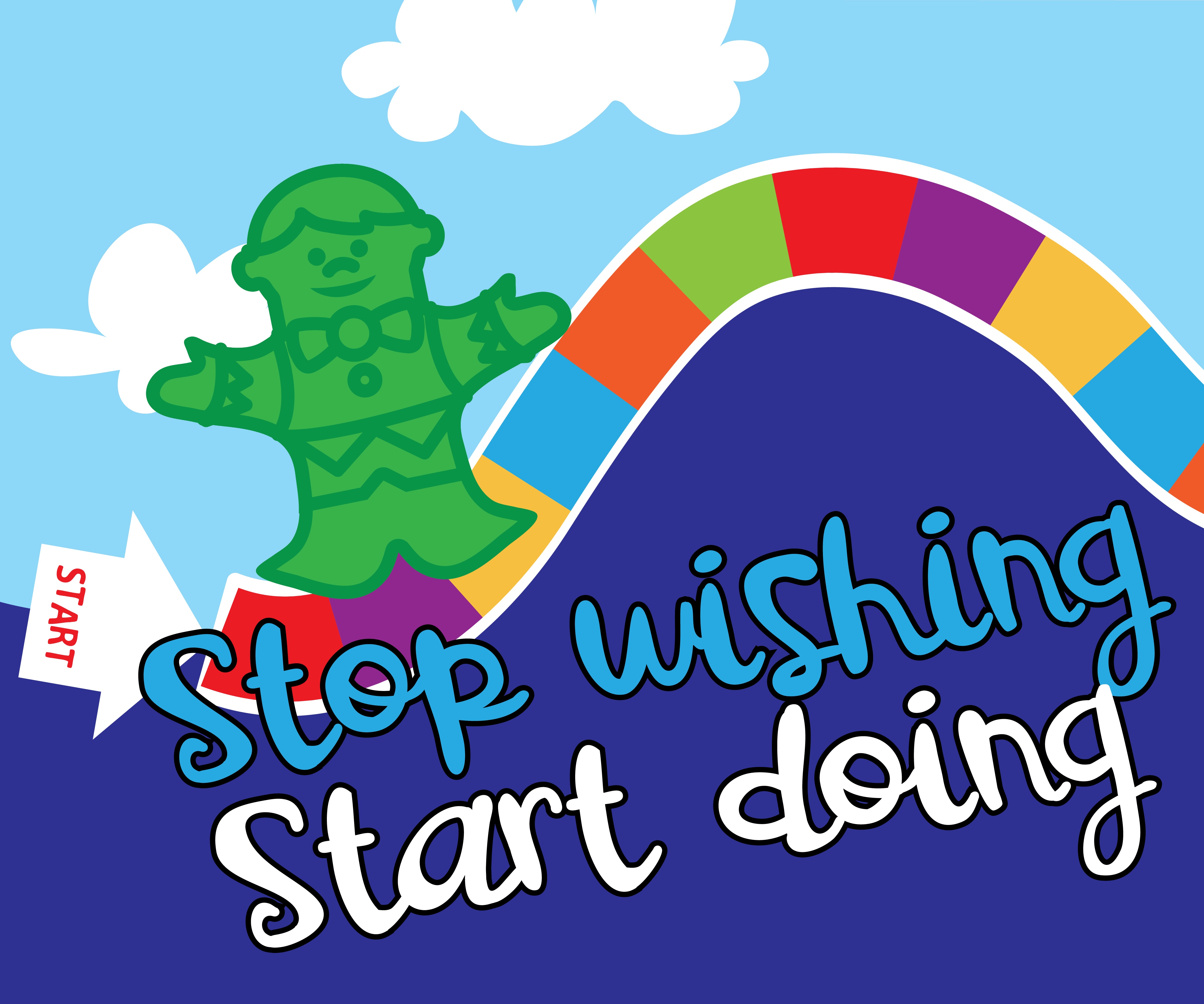
Introduction to Gooey Gumdrops Script Font
Do you ever find yourself stuck on a creative project, desperate for the perfect font to bring your design to life? I know I do. And sometimes, all it takes is one glance at a quirky, high-quality script font to spark inspiration. For designers, having access to a wide range of design resources is crucial to creating unique and engaging work.
Enter Gooey Gumdrops Script Font, a delightful and whimsical script that pairs perfectly with its sister font, Gooey Gumdrops. This free download is a game-changer for any creative project, adding a touch of youthful energy that’s sure to captivate your audience. And the best part? The transparent background makes it easy to incorporate into your design without any fuss.
Whether you’re working on a children’s book, a blog post, or a social media campaign, Gooey Gumdrops Script Font is an invaluable resource for designers. Its versatility and charm make it a must-have for anyone looking to add a touch of personality to their work.
Key Features of Gooey Gumdrops Script Font
- High-quality, hand-drawn design ideal for creative projects requiring a unique touch
- Unique, whimsical script style that adds a touch of playfulness to any design project
Honest Review: Gooey Gumdrops Script Font
As a designer, I’m always on the lookout for unique and high-quality design resources to elevate my creative projects. The Gooey Gumdrops Script Font is a great find, and I’m excited to share my honest review.
- ✨ The font’s whimsical, handwritten feel is perfect for adding a touch of personality to designs, from invitations to social media graphics.
- ✨ The transparent background option allows for seamless integration with any design element.
- ⚠️ The font may not be suitable for formal or professional designs, as it has a playful, cursive feel.
- ⚠️ Some users may find the font’s irregularities and imperfections distracting, especially in large blocks of text.
Overall, I’m impressed with the Gooey Gumdrops Script Font. It’s a fantastic addition to any designer’s toolkit, offering a unique and creative way to add visual interest to designs. Just be mindful of its limitations and use it sparingly in the right contexts.